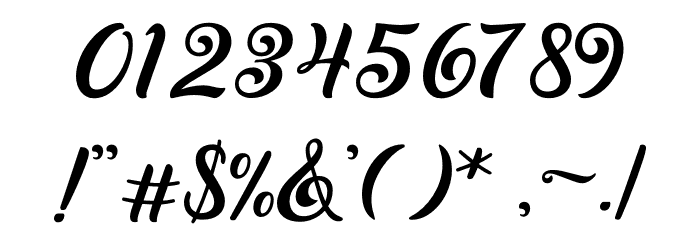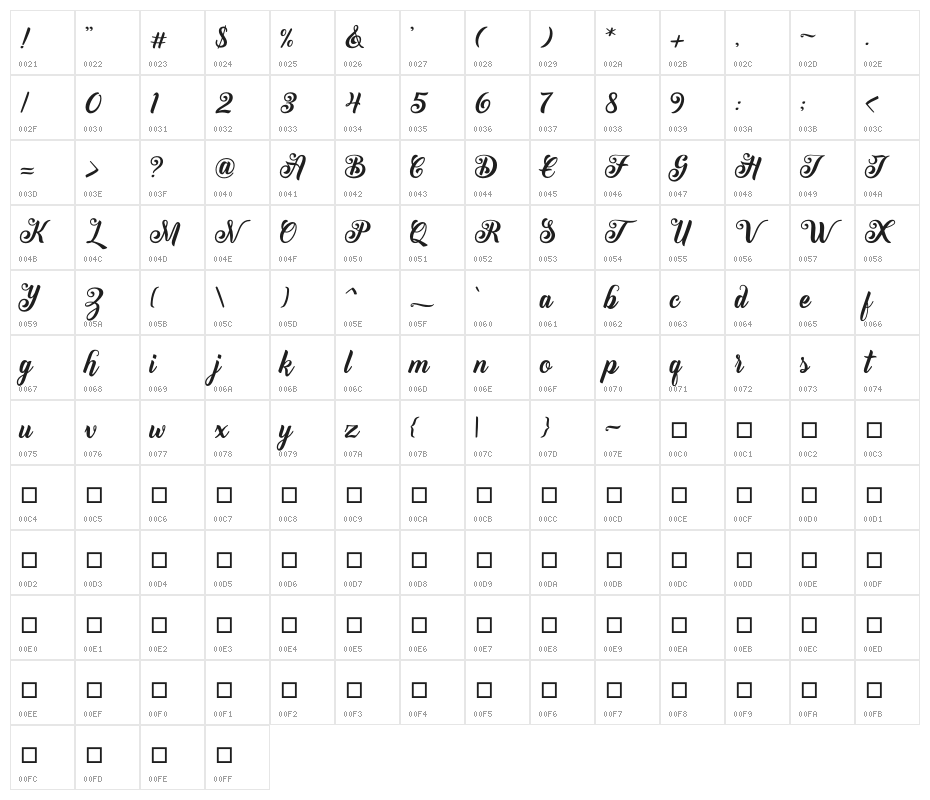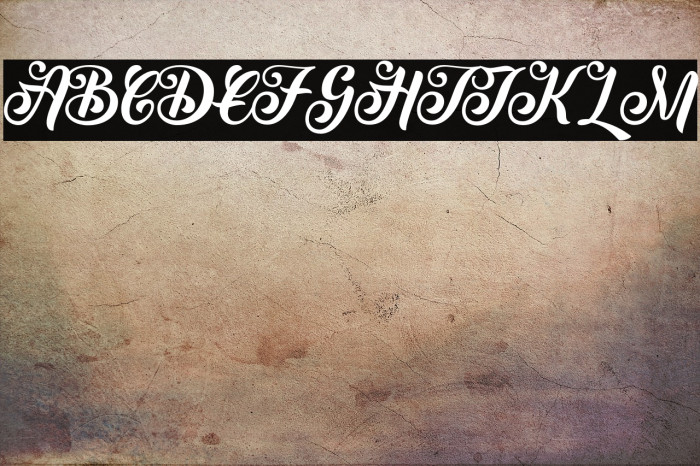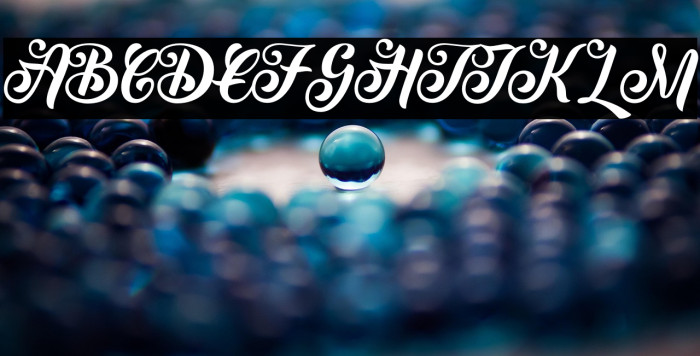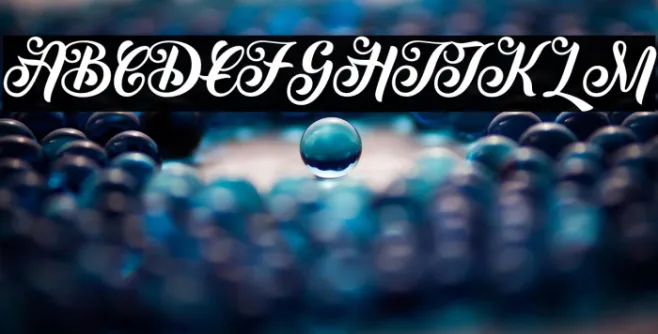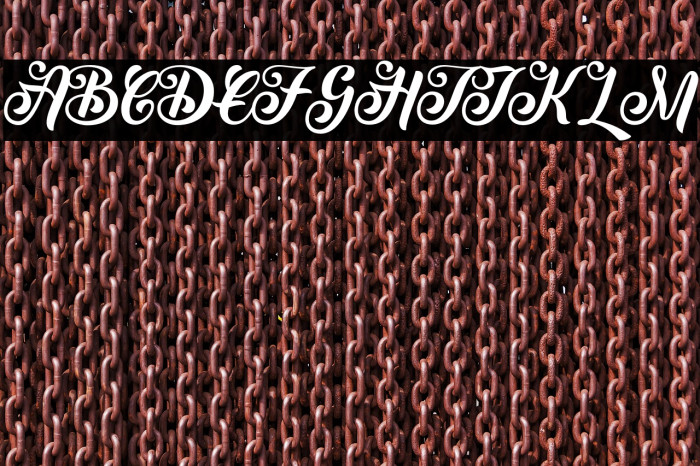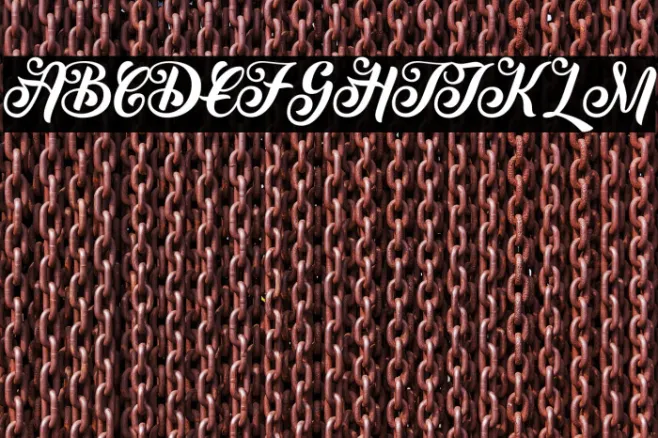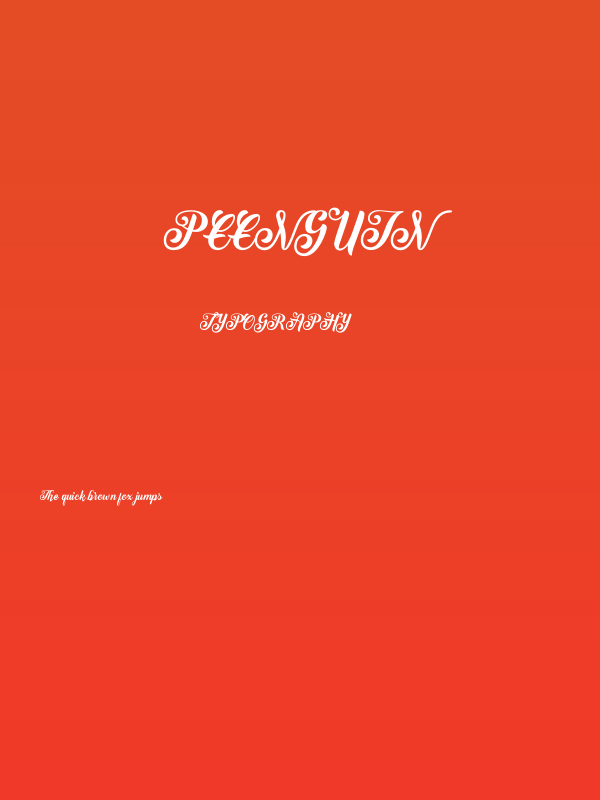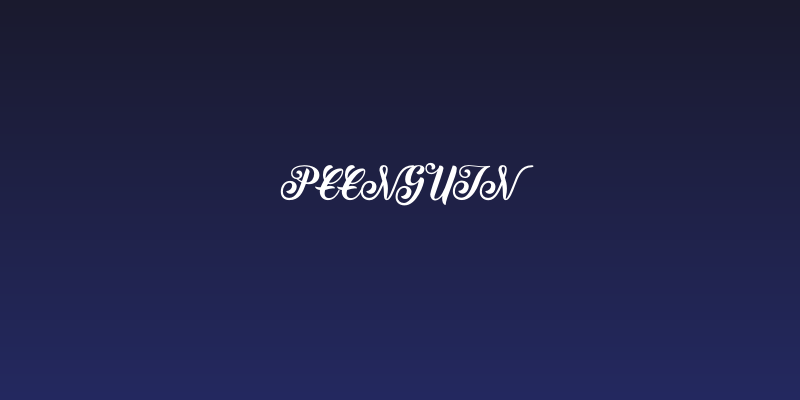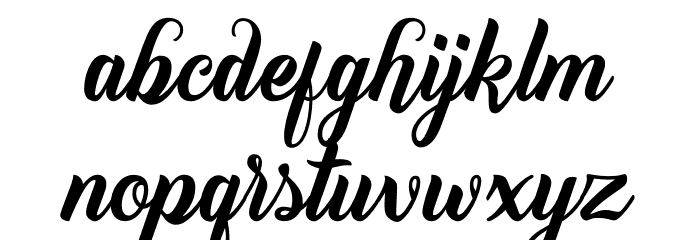
Peenguin Font
Peenguin Description
This font features a bold and elegant script style with a flowing, cursive design. The uppercase letters are characterized by intricate loops and swirls, giving them a sophisticated and decorative appearance. The lowercase letters maintain a consistent flow, with smooth curves and a slightly slanted orientation. The numbers are bold and maintain the script style, ensuring consistency across all characters. Special characters are designed to complement the overall aesthetic, with a playful yet refined look. This font is perfect for projects that require a touch of elegance and creativity.
| Proposed Projects | Ideal for wedding invitations, branding, logo design, and elegant stationery. |